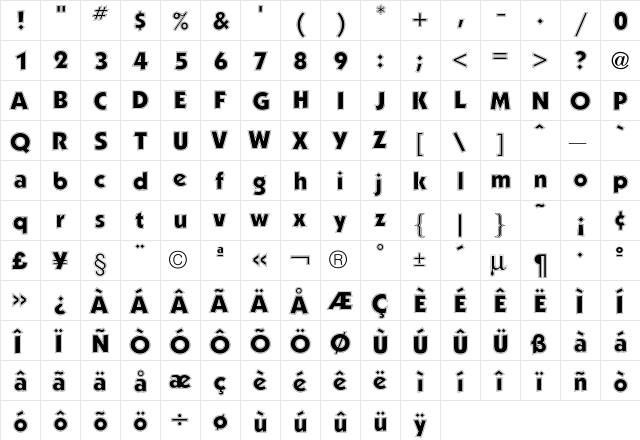
Kabel Contour
Design Context for Kabel Typeface
Kabel takes a measured approach to typography — its balanced proportions and neutral character make it a reliable workhorse for both digital and print work.